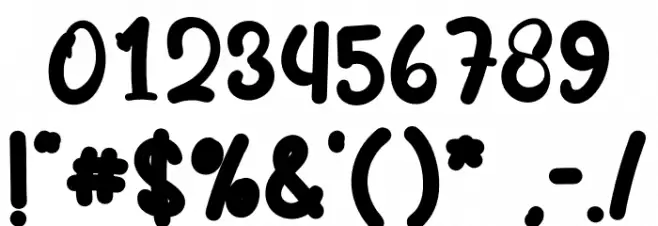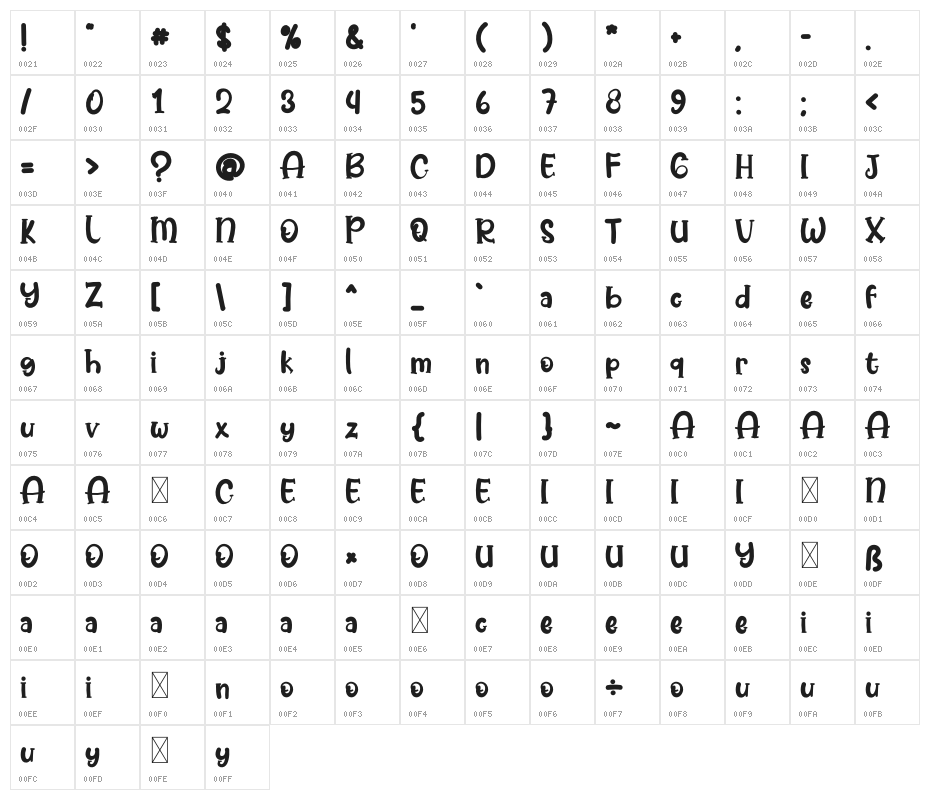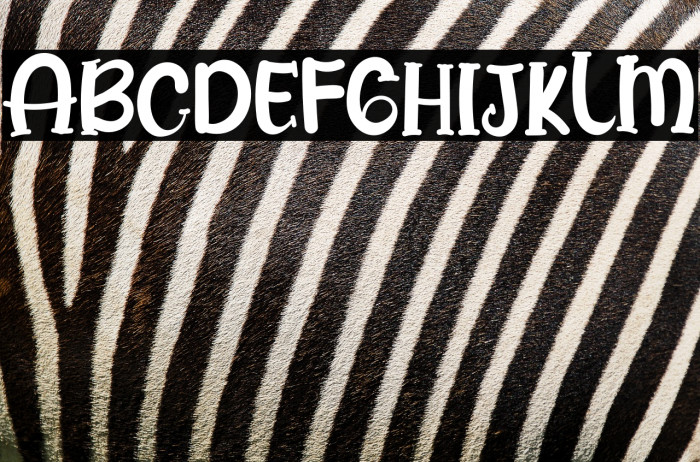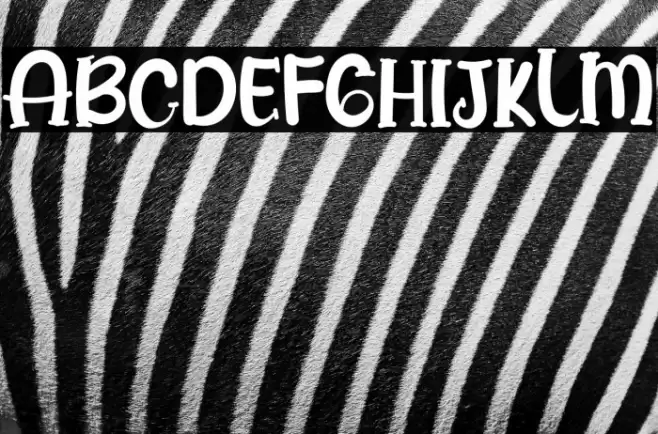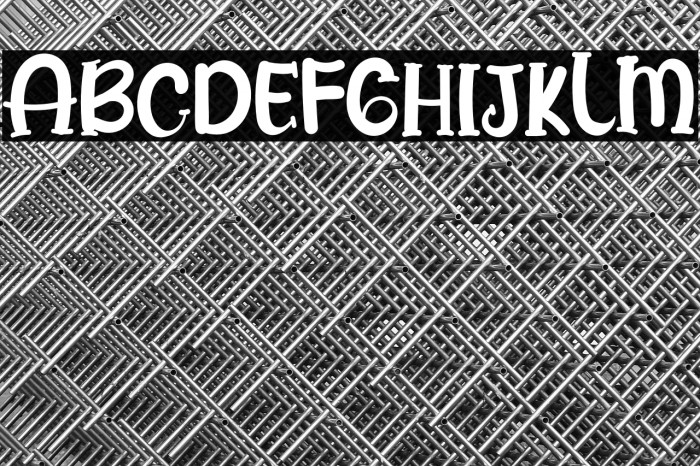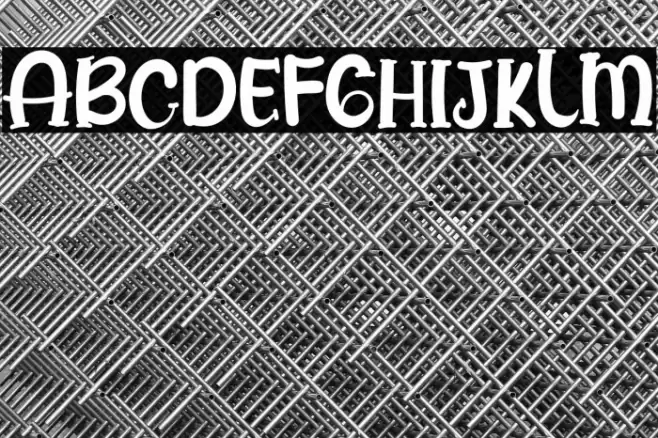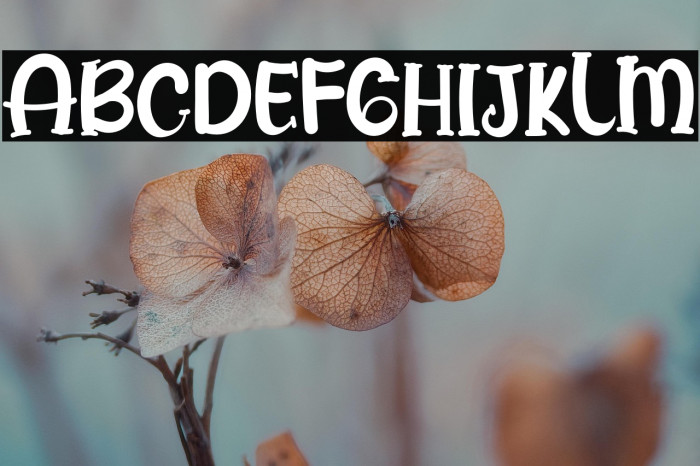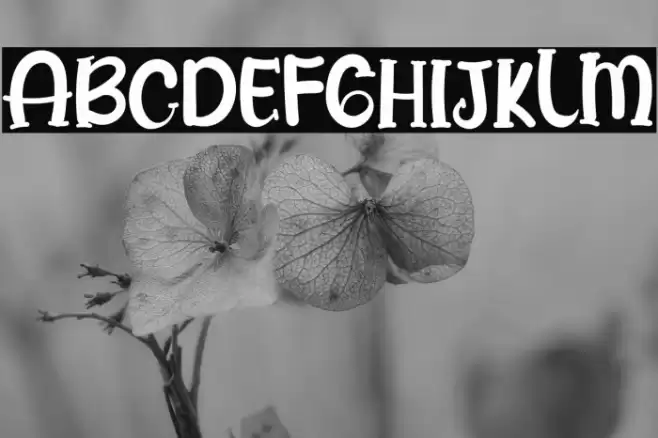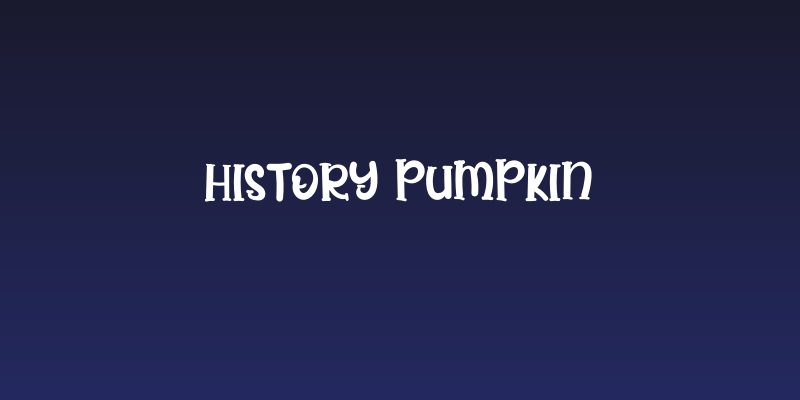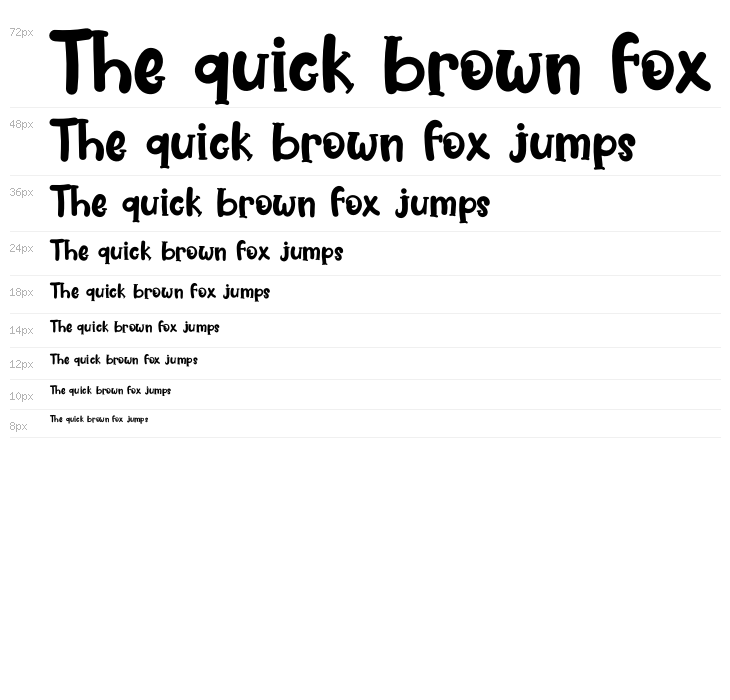
History Pumpkin Font
History Pumpkin Description
This font features a playful and whimsical design, characterized by its bold and rounded letterforms. The strokes are thick and consistent, giving it a strong presence. Each character has a slightly uneven baseline, adding to its casual and hand-drawn appearance. The font includes a full set of uppercase and lowercase letters, numbers, and a variety of special characters. Its unique style makes it stand out, perfect for projects that require a fun and informal touch.
| Proposed Projects | Ideal for children's books, playful branding, greeting cards, and party invitations. |